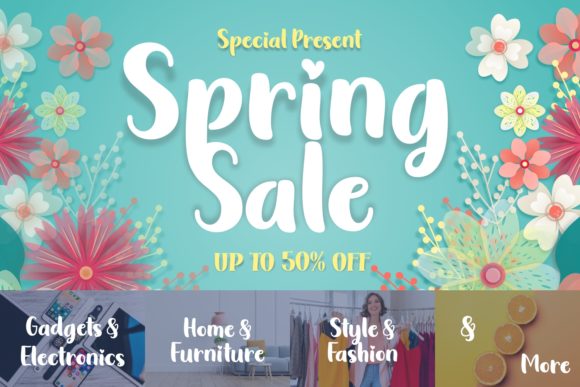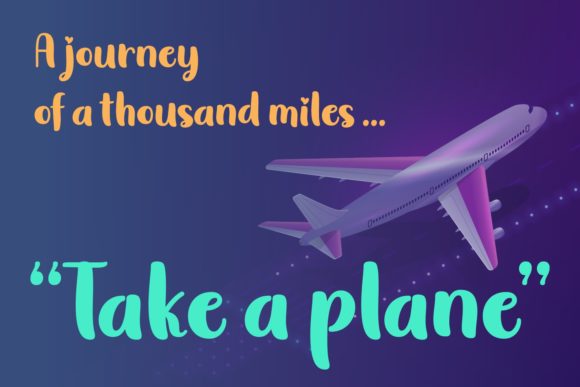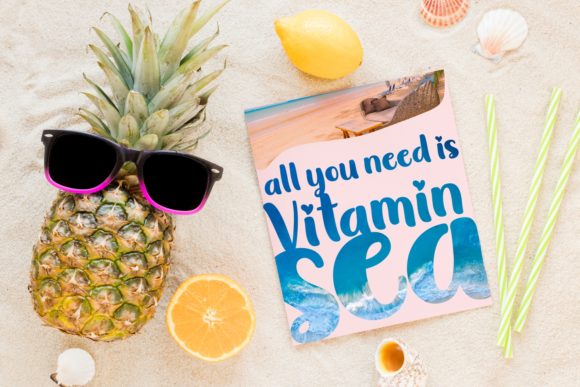
Introduction to New & Fresh Font Font
Fonts play a crucial role in design, and the New & Fresh Font font is a typeface that brings both character and versatility to any project. Whether you’re working on a branding project, a website, or a print design, the New & Fresh Font font offers a unique style that can elevate your work.
New & Fresh is a trendy and unique display font.
No matter the topic, this font will be an incredibly asset to your fonts’ library, as it has the potential to elevate any creation .
Key Features of New & Fresh Font Font
Why Choose New & Fresh Font Font?
The New & Fresh Font font is more than just a typeface – it’s a design tool that helps you communicate your message with style and clarity. Its unique character set and versatile design make it suitable for a wide range of applications, from elegant invitations to bold headlines.
With its carefully crafted letterforms and balanced proportions, the New & Fresh Font font ensures readability and visual appeal across all mediums.
What makes New & Fresh Font font special?
The New & Fresh Font font stands out with its unique design, exceptional readability, and versatility across various design applications.